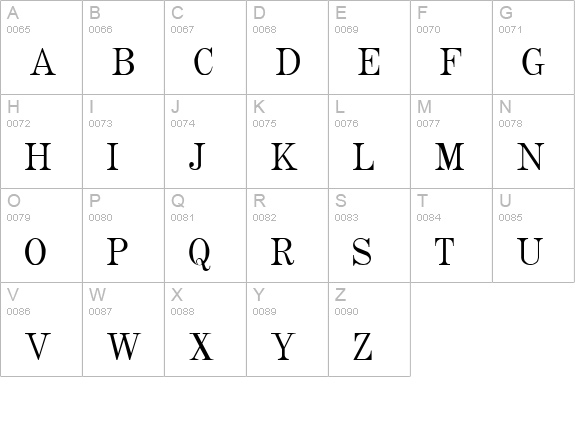
QTCraigetype Regular Font Details
QTCraigetype Regular is the standard, neutral variant in the QTCraigetype typeface family \xE2\x80\x94 well suited to general body text, paragraphs, and standard typographic work.
QTCraigetype Regular font is a contemporary and versatile typeface that embodies a perfect balance between elegance and readability. With its clean and crisp letterforms, this font is perfect for a wide range of design projects, from branding and advertising to editorial and web design. The QTCraigetype Regular font combines classic and modern elements, resulting in a unique and timeless aesthetic. Its subtle rounded corners give it a friendly and approachable feel, while its strong and confident lines convey a sense of professionalism. One of the standout features of QTCraigetype Regular font is its versatility. It works equally well in both large headlines and small body text, ensuring that your message will always be clear and legible. Its wide range of weights and styles also allow for plenty of creative possibilities, making it a go-to choice for designers looking to add a touch of sophistication to their work. And the best part? QTCraigetype Regular font is available for free download at FontsMarket.com. Whether you're a professional designer or a hobbyist, you can freely access this font and use it in your projects without any restrictions. So why wait? Get your hands on QTCraigetype Regular font today and elevate your designs to a whole new level of elegance and professionalism.